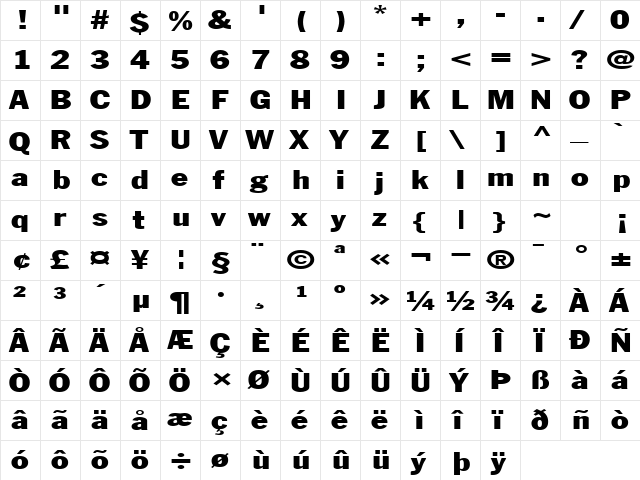
LibraryGothicHeavyExtended Regular
Design Context for LibraryGothicHeavyExtended Typeface
LibraryGothicHeavyExtended has the quiet confidence of well-executed sans-serif typography: versatile, unobtrusive, and dependable at any size.
Font Pairing: Works well alongside a characterful serif or display font that can carry the expressive load while LibraryGothicHeavyExtended handles the functional copy.
Pro Tip: Use LibraryGothicHeavyExtended for UI labels, navigation, and short-form body copy where clean legibility is the priority.